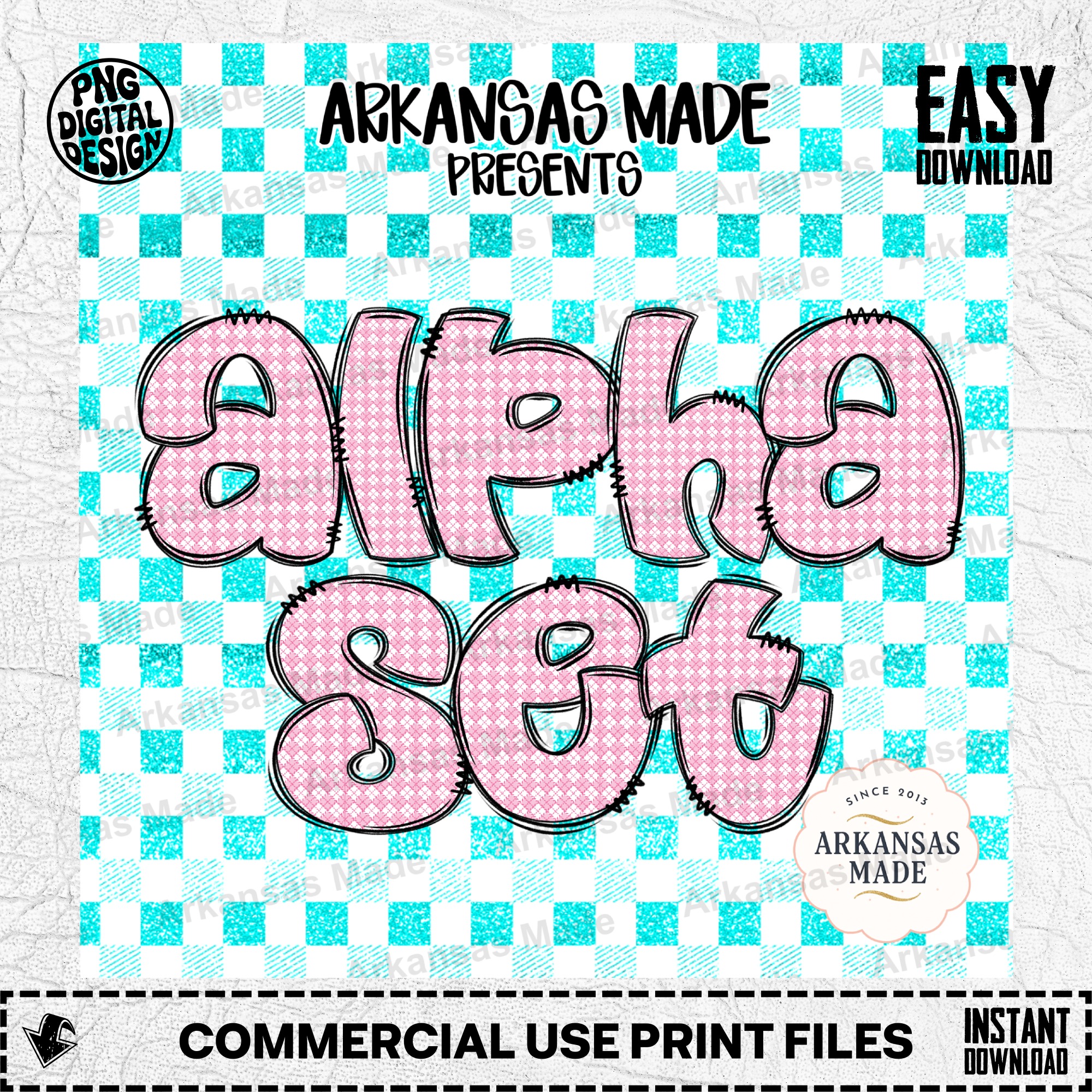
Get the Pink Houndstooth Stitched Bubble Letters PNG Alpha Set for your next craft! This cute digital alphabet font is perfect for sublimation projects. This playful alpha set features a stylish faux houndstooth pattern and charming stitched outline, bringing a sweet and preppy vibe to any design. Ideal for crafters, DIY enthusiasts, and small business owners creating personalized items. Use it for custom apparel, unique digital art, party decor, or thoughtful handmade gifts for birthdays and special occasions.